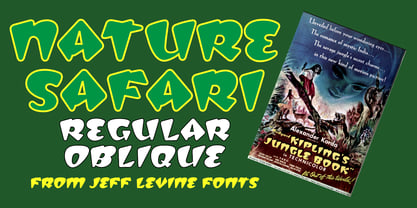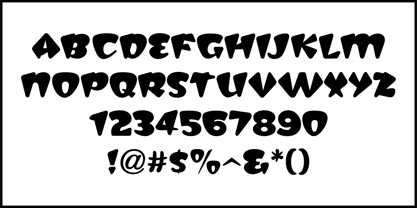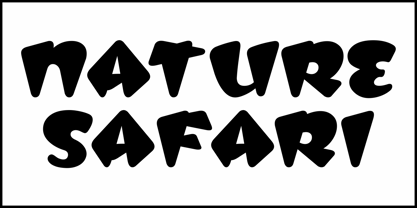
Nature Safari JNL
by Jeff Levine
An ad for the film "Jungle Book" was found in the March 18, 1942 issue of "The Exhibitor", a film industry trade publication.
The hand lettering contained in the ad was a novelty design which inferred the exotic jungle theme. This is now available as Nature Safari JNL in both regular and oblique versions.
Designers: Jeff Levine
Foundry: Jeff Levine